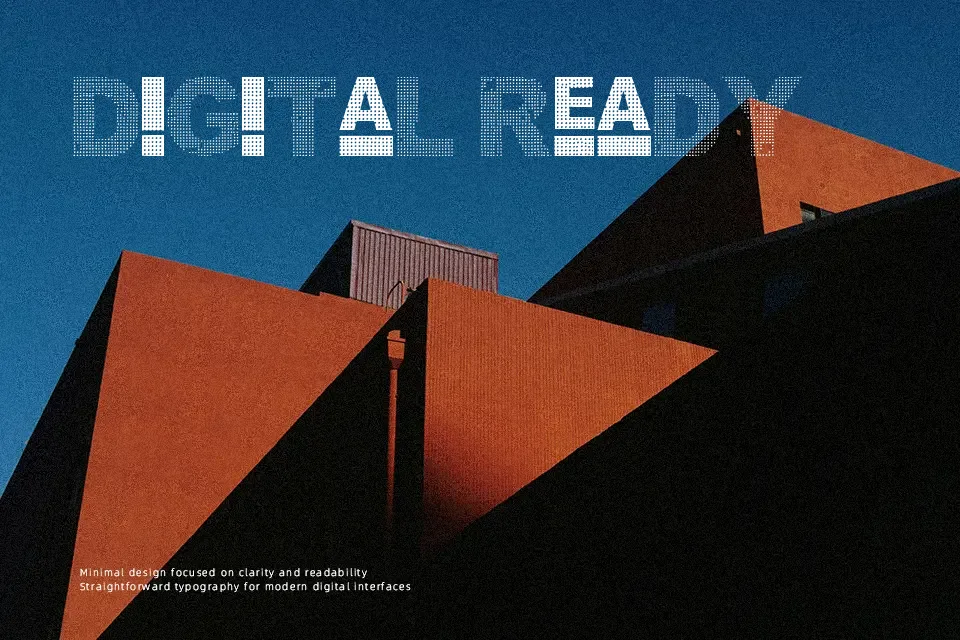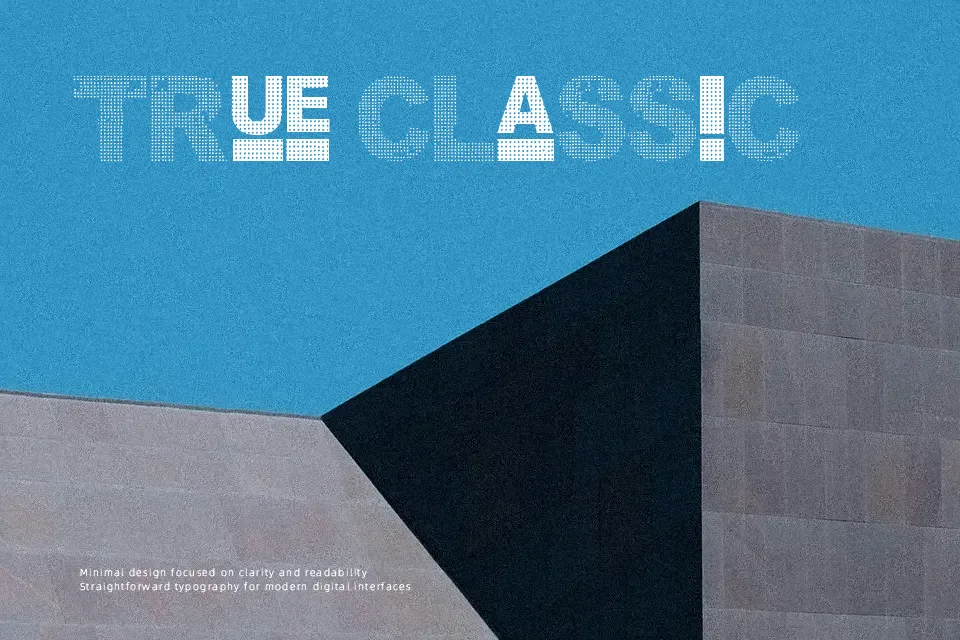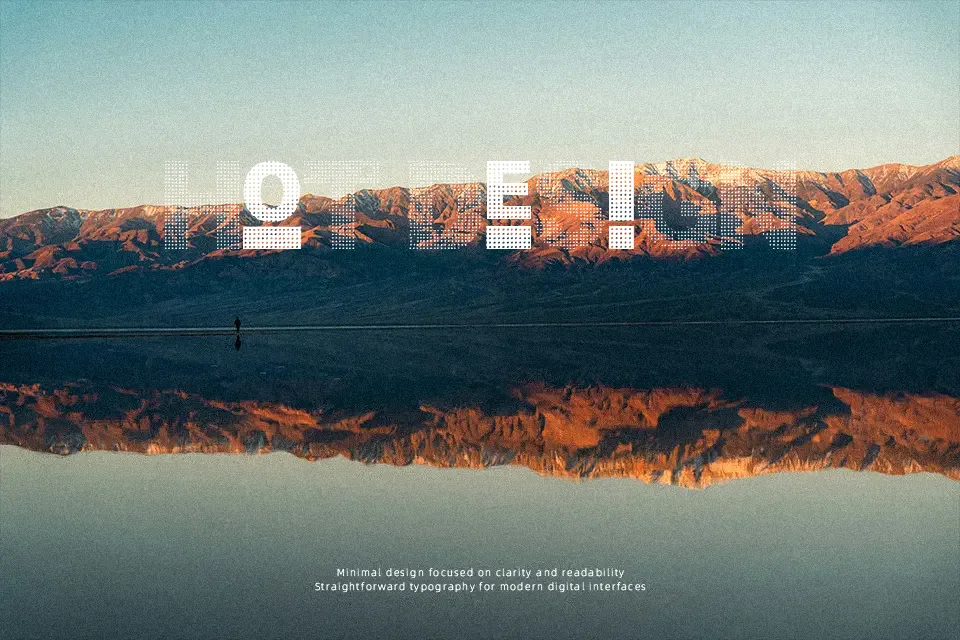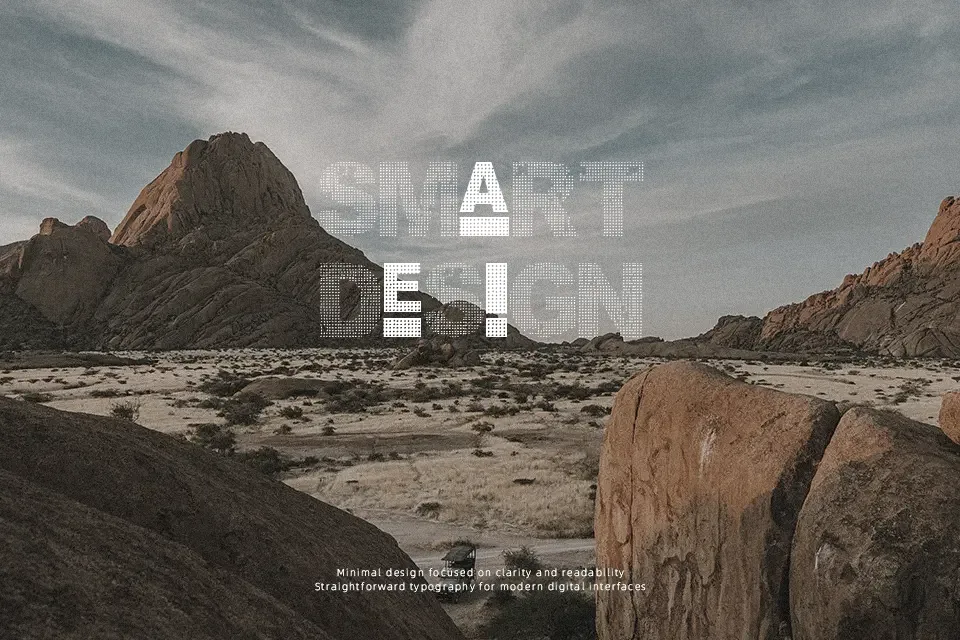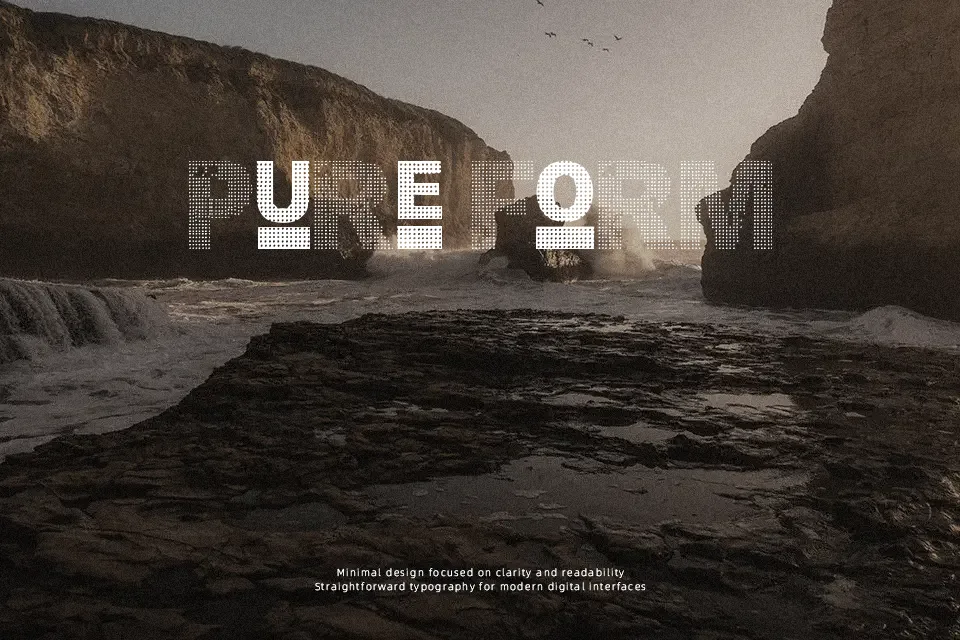
Bon Appetit Font
Bon Appetit is a uniquely textured display typeface crafted by Woodcutter, built from a grid of tiny squares that create a distinct halftone or pixellated effect. Its bold, structured letterforms carry a modern yet playful energy, standing out against cleaner, traditional sans-serifs. The dotted pattern gives the characters a digital, slightly retro aesthetic that easily commands attention. This decorative design excels in large-scale applications like restaurant branding, food truck signage, or vibrant event posters where you need typography with immediate visual impact. However, the heavy texture and intricate details make it completely unsuitable for dense body text or small print, as the dotted elements blur and severely reduce legibility at smaller sizes.
Vibrant event posters and flyers
Bold restaurant branding and menus
Large-scale digital media headers
Eye-catching food packaging designs
Small or dense body text
Corporate or highly formal documents
Minimalist user interfaces
Perfect for branding, headline, and packaging, with a bold and decorative style.